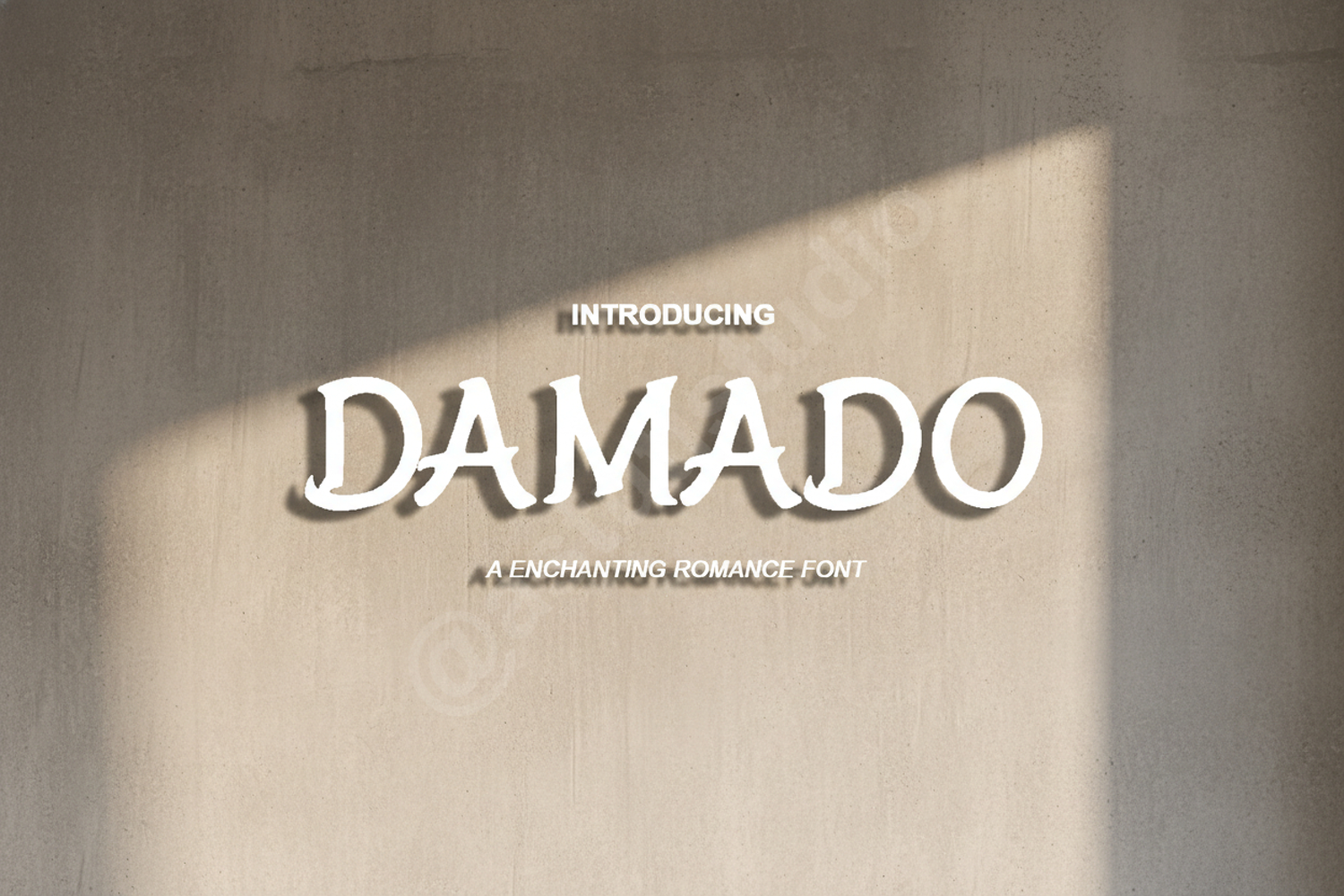
Damado - Elegant Modern Serif Typeface
Damado
Elevate your creative projects with Damado, a premium display serif typeface that balances timeless elegance with a modern edge. Meticulously crafted for high-end aesthetics, Damado offers clean lines and sophisticated curves that make it an essential addition to any designer's toolkit.
- Luxury Branding and Identity: Perfect for high-end fashion or lifestyle brands.
- Editorial Design: Ideal for magazine layouts, headers, and pull quotes.
- Wedding Stationery: Adds a touch of class to invitations and menus.
- Logo Design: Creates a memorable and professional visual presence.
- Social Media Graphics: Enhances the aesthetic of digital marketing content.